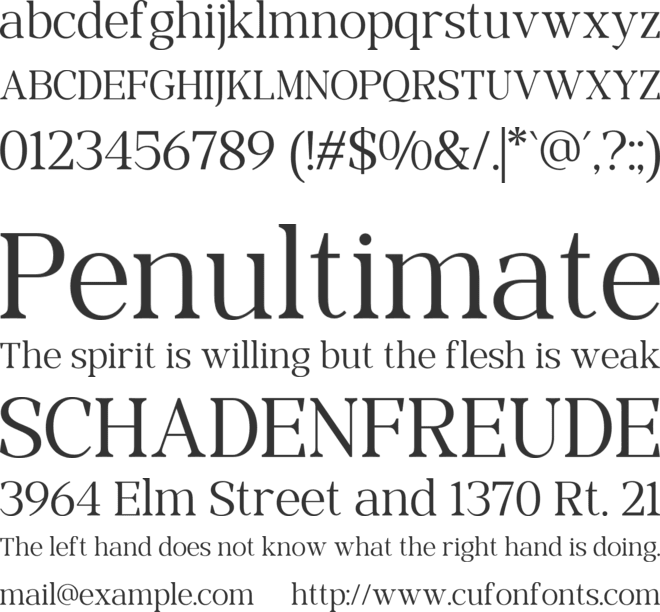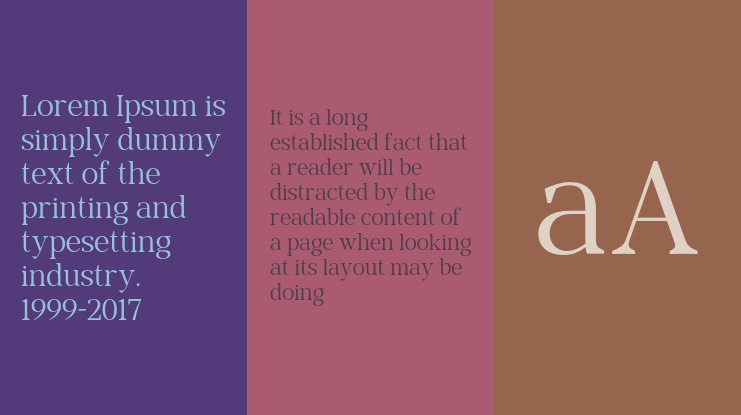
RCL Morland Font
Morland is a modern serif font family crafted for elegance, clarity, and professional typography. Designed with refined proportions and smooth contrast, Morland delivers a timeless editorial feel suitable for both print and digital design. Featuring multiple weights from Thin to Bold, Morland is perfect for logos, magazines, fashion branding, book covers, websites, and premium visual identities.